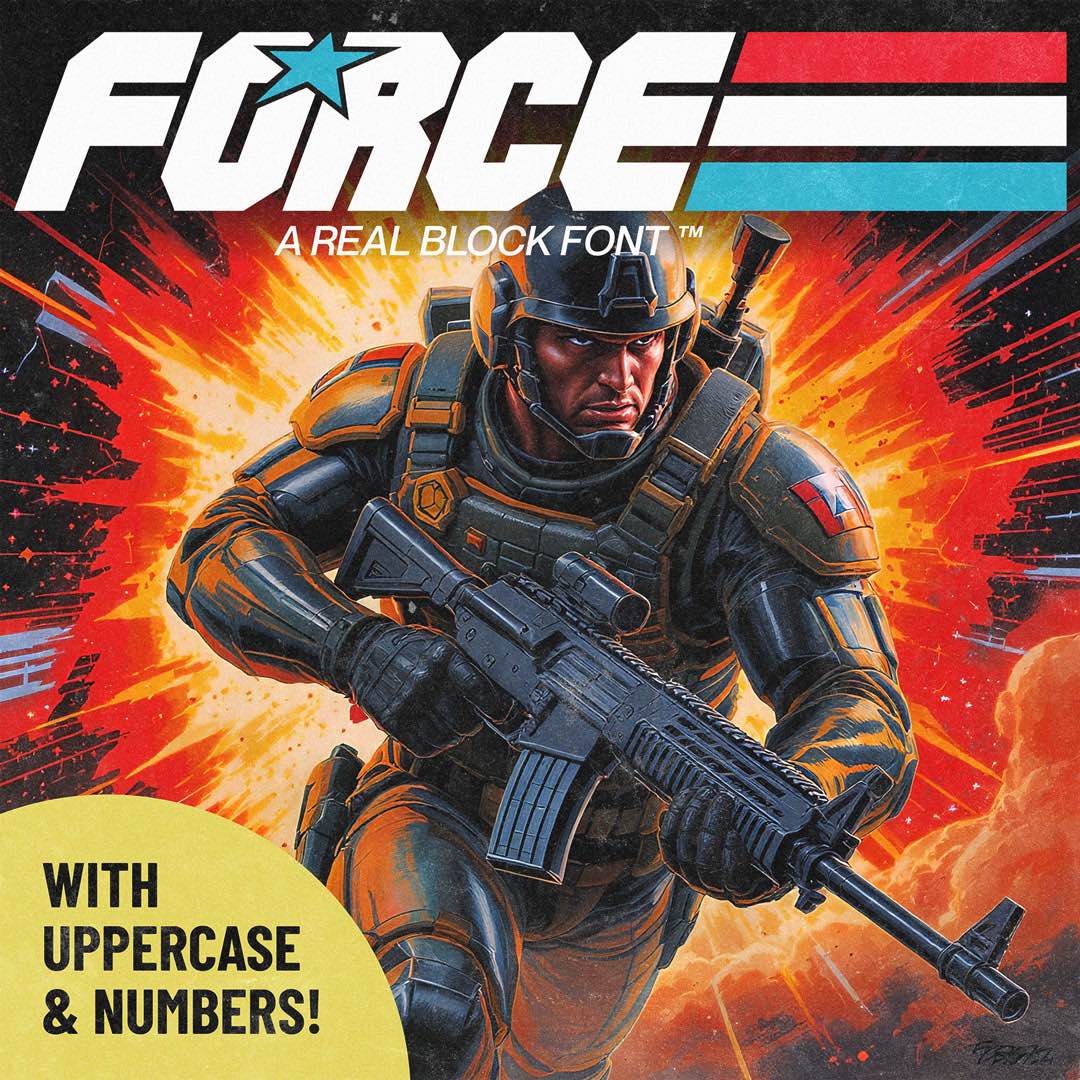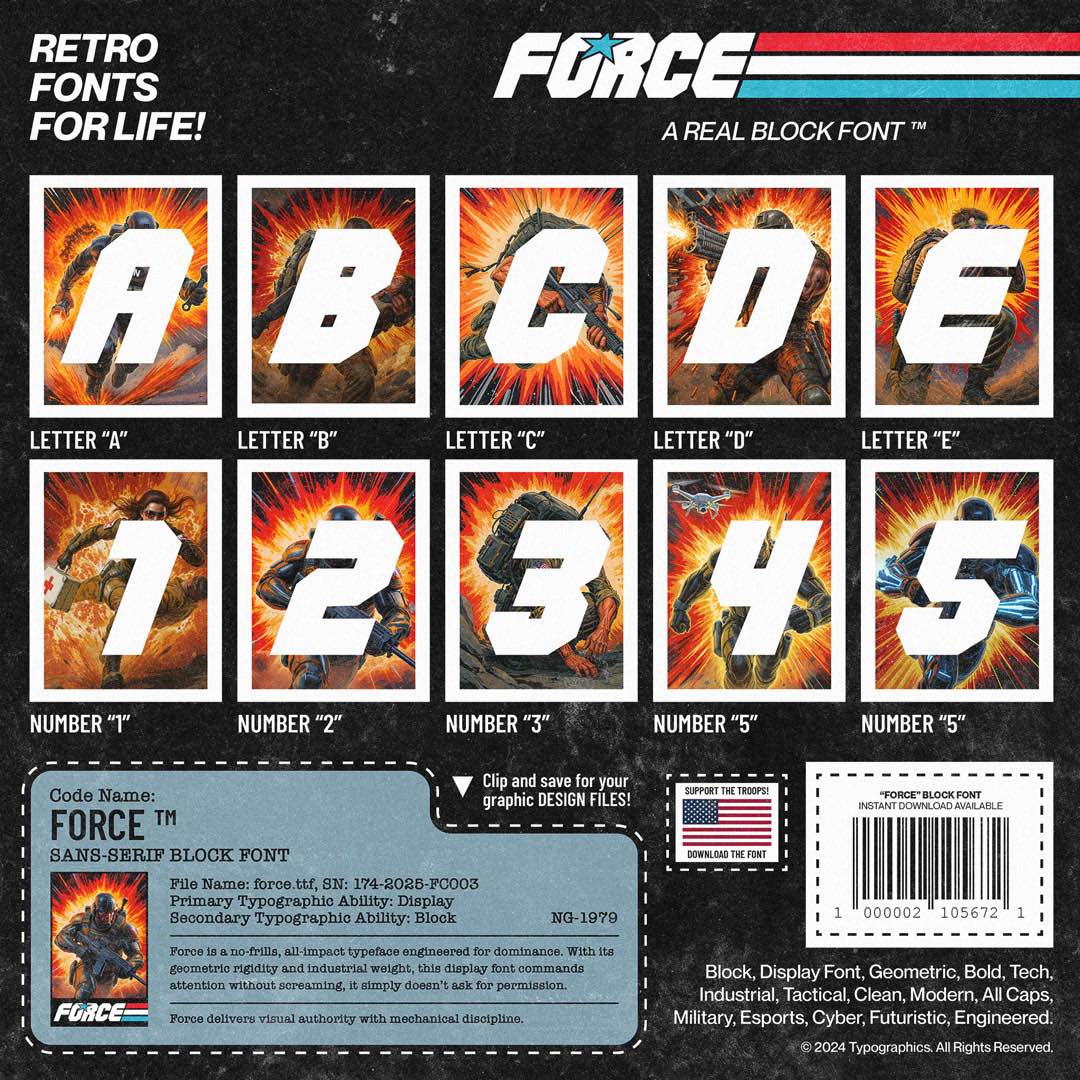
Force is a no-frills, all-impact typeface engineered for dominance. With its geometric rigidity and industrial weight, this display font commands attention without screaming, it simply doesn’t ask for permission. Perfect for tactical layouts, sports branding, or any project that needs to feel powerful, clean, and built for precision, Force delivers visual authority with mechanical discipline.